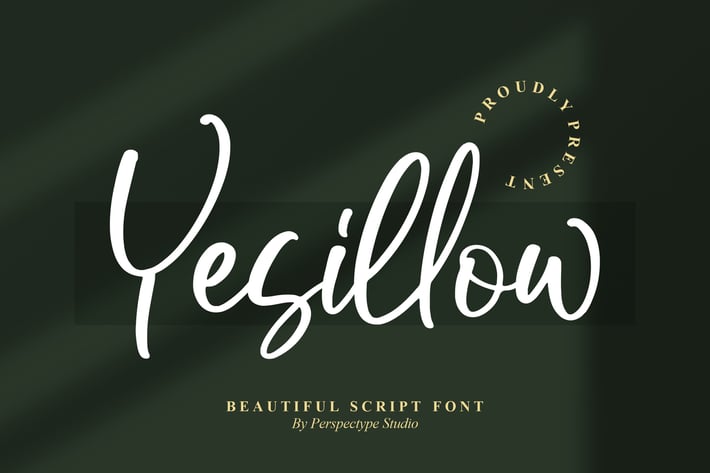
Yesillow Script Font
Yesillow Script is a beautiful handwritten script with a natural flow and elegant charm. Designed to complement both digital and printed works, this font is perfect for stylish and creative projects such as posters, social media graphics, branding, and personal designs. Its smooth curves and balanced strokes make it versatile for modern design needs.
+ Elegant handwritten script style
+ Smooth and natural letterforms
+ Works perfectly for both digital & print projects
+ Branding & Logo Design
+ Wedding Invitations & Greeting Cards
+ Social Media Content & Quotes
+ Posters, Flyers & Business Cards
+ Packaging & Creative Print Materials
Bring your designs to life with Yesillow Script Font – a modern handwritten script that blends elegance and creativity for every project.